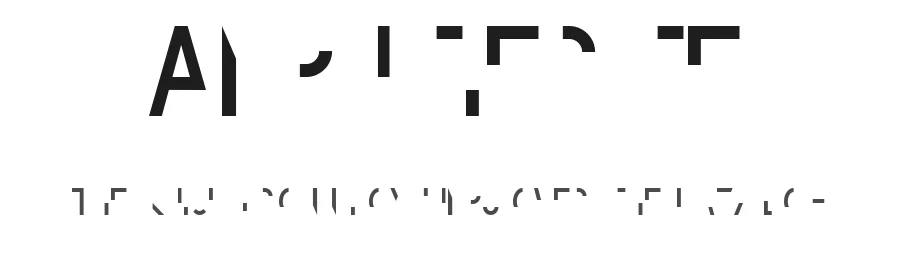
About Unsightly Font
Unsightly is a display font designed by GGBotNet. It includes 265 glyphs, a regular weight, TTF (TrueType) format, and 241 languages. Unsightly is free to download; check the license details on this page before commercial use. Display fonts like Unsightly work best for logos, posters, headlines, and eye-catching social media graphics.
Unsightly Font is a display font that shines as a display or heading face. Pair it with a clean sans-serif or serif font for body text โ the contrast creates a clear hierarchy while the two styles stay balanced and easy to read.
Unsightly Font
Unsightly Font is a display typeface by GGBotNet, ideal for logos, invitations, branding, and creative projects.